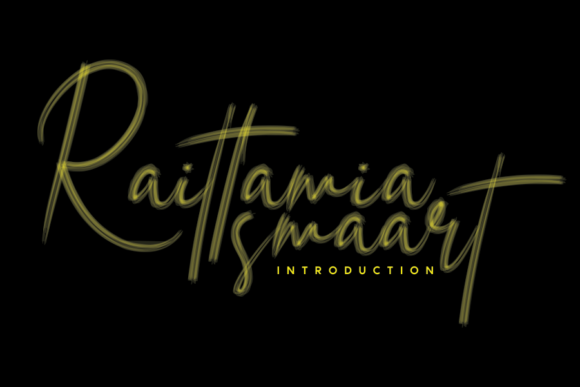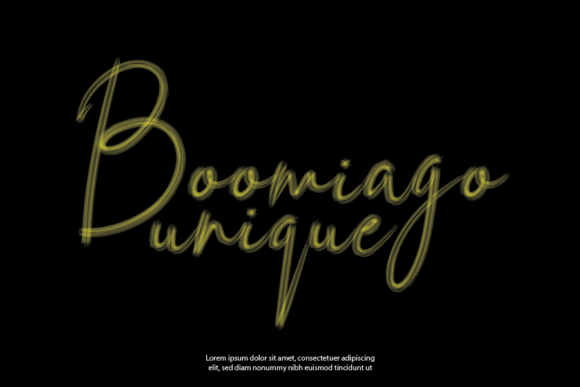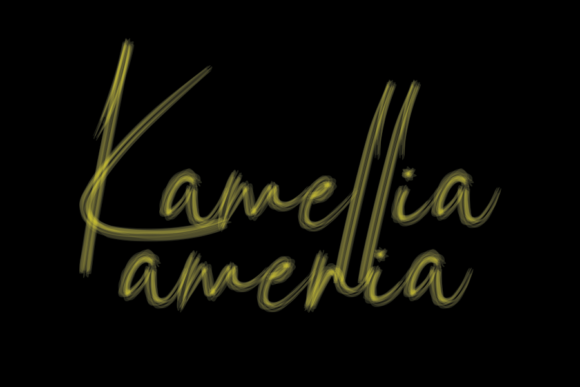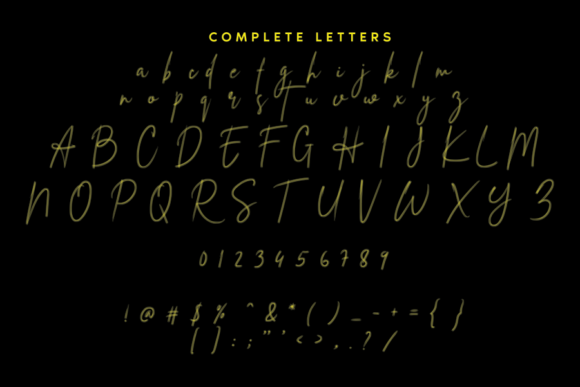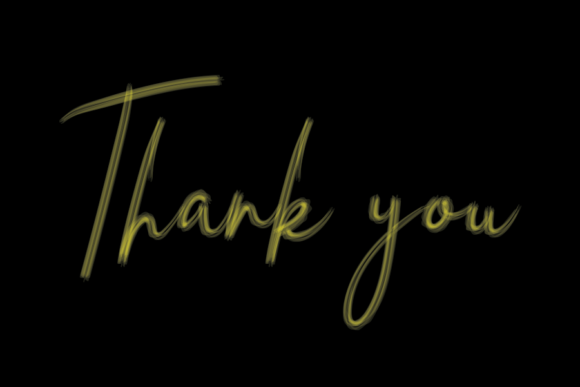
Raittamia Smaart Font
About Raittamia Smaart Font
Raittamia Smaart is an incredibly beautiful and flowing handwritten font, created with the help of an outstanding brush pen. Fall in love with its versatile style and use it to create gorgeous wedding invitations, beautiful stationary art, eye-catching social media posts, and much more!